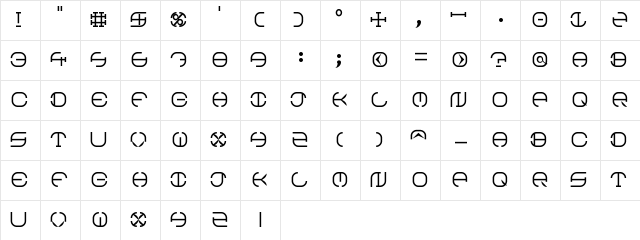
South Circle Regular
| Designer | peps1992 |
South Circle takes a measured approach to typography — its balanced proportions and neutral character make it a reliable workhorse for both digital and print work.